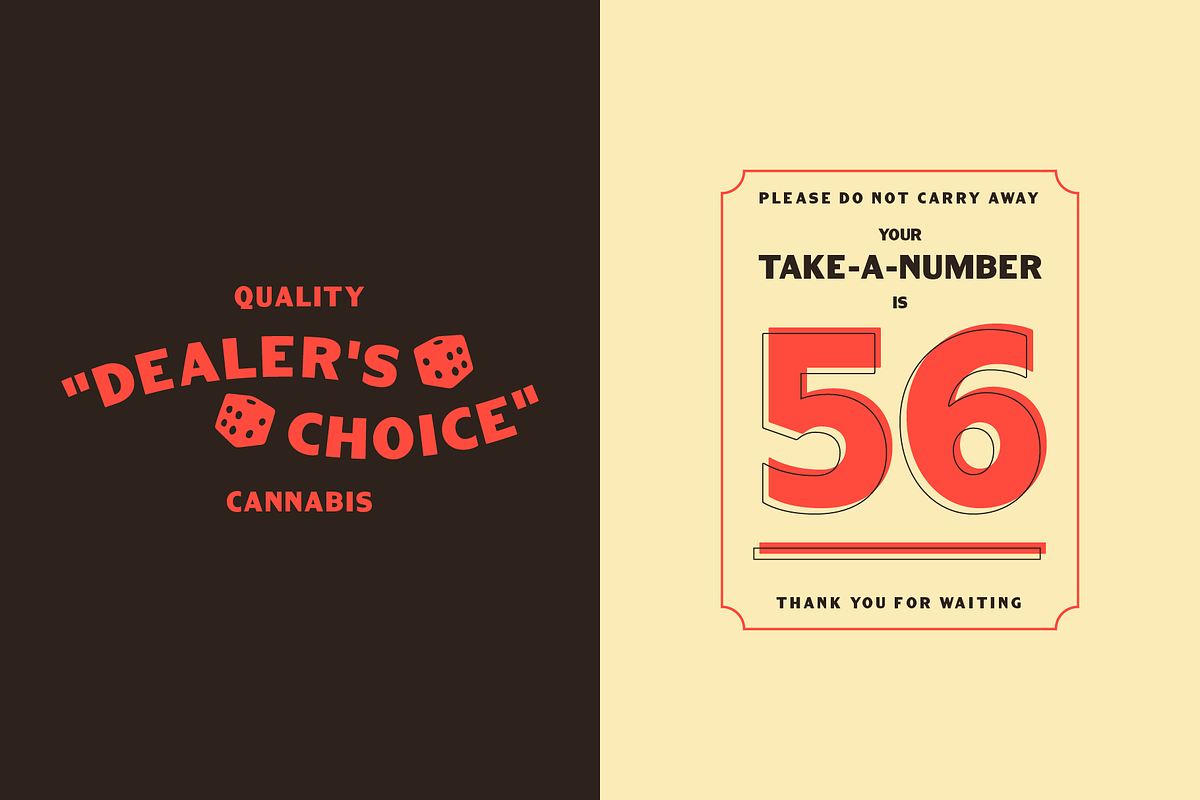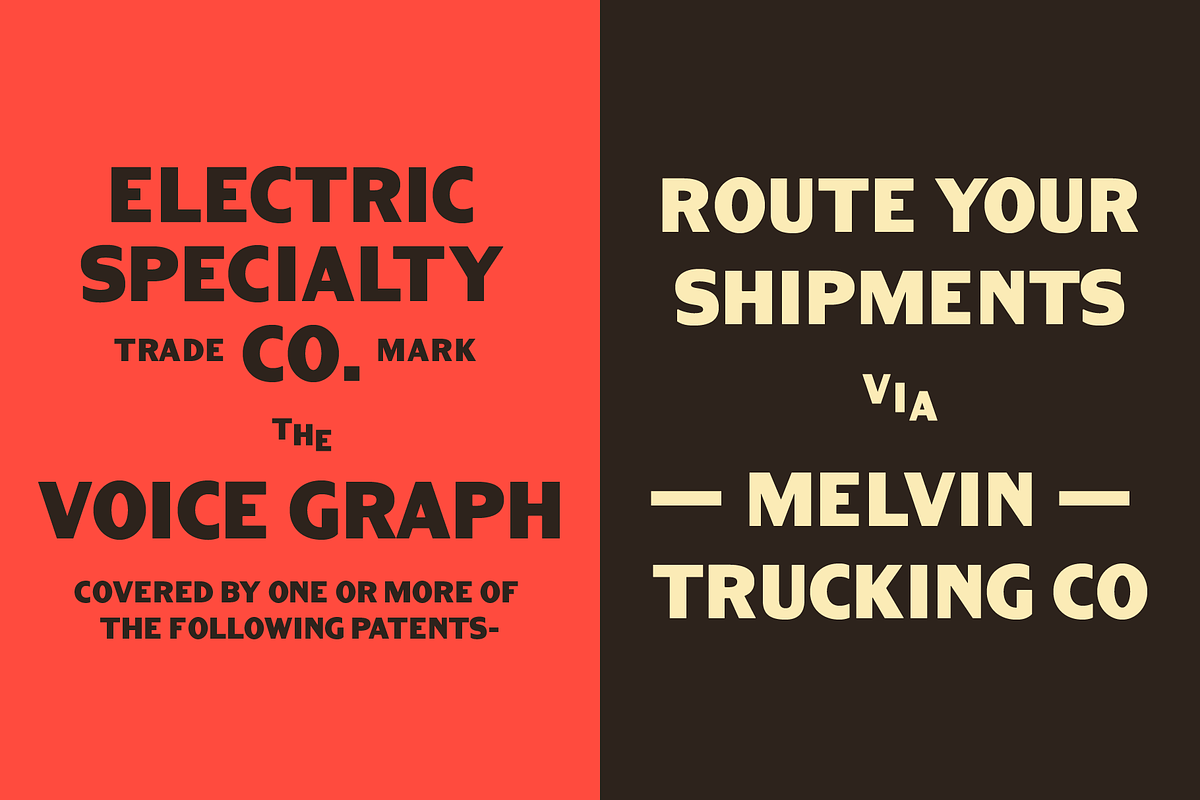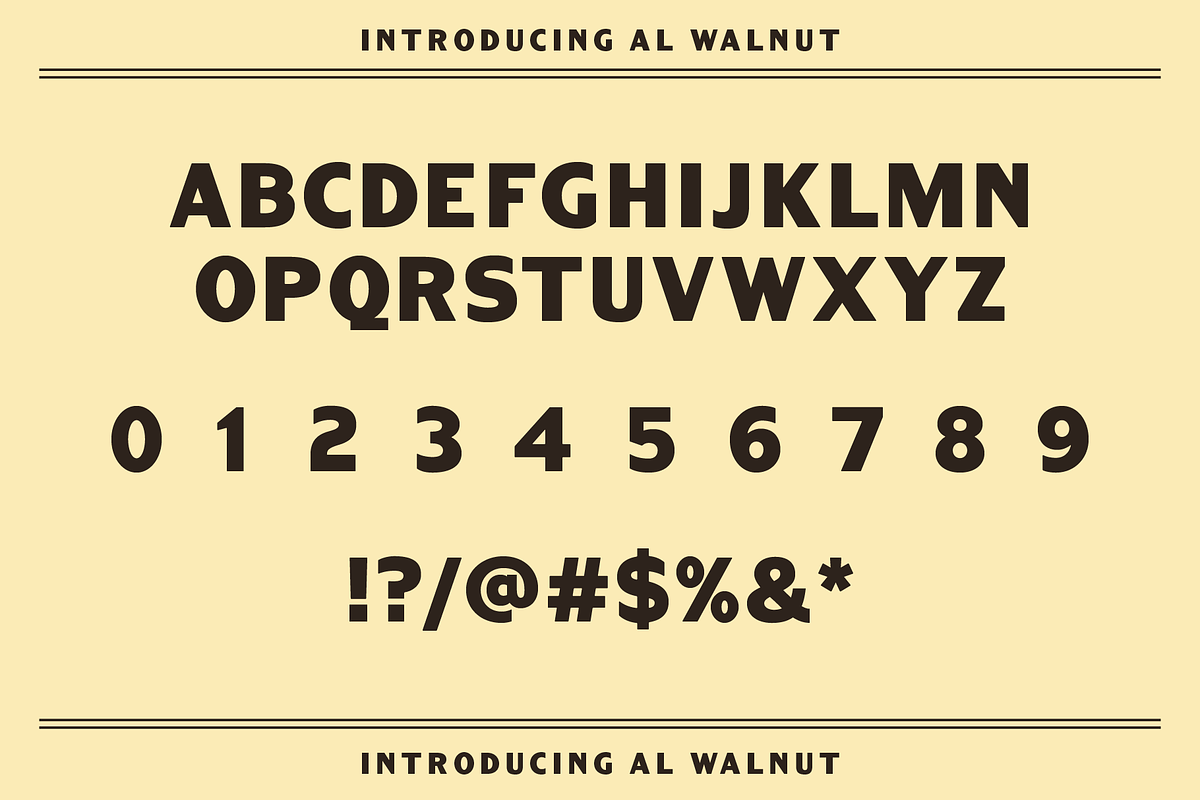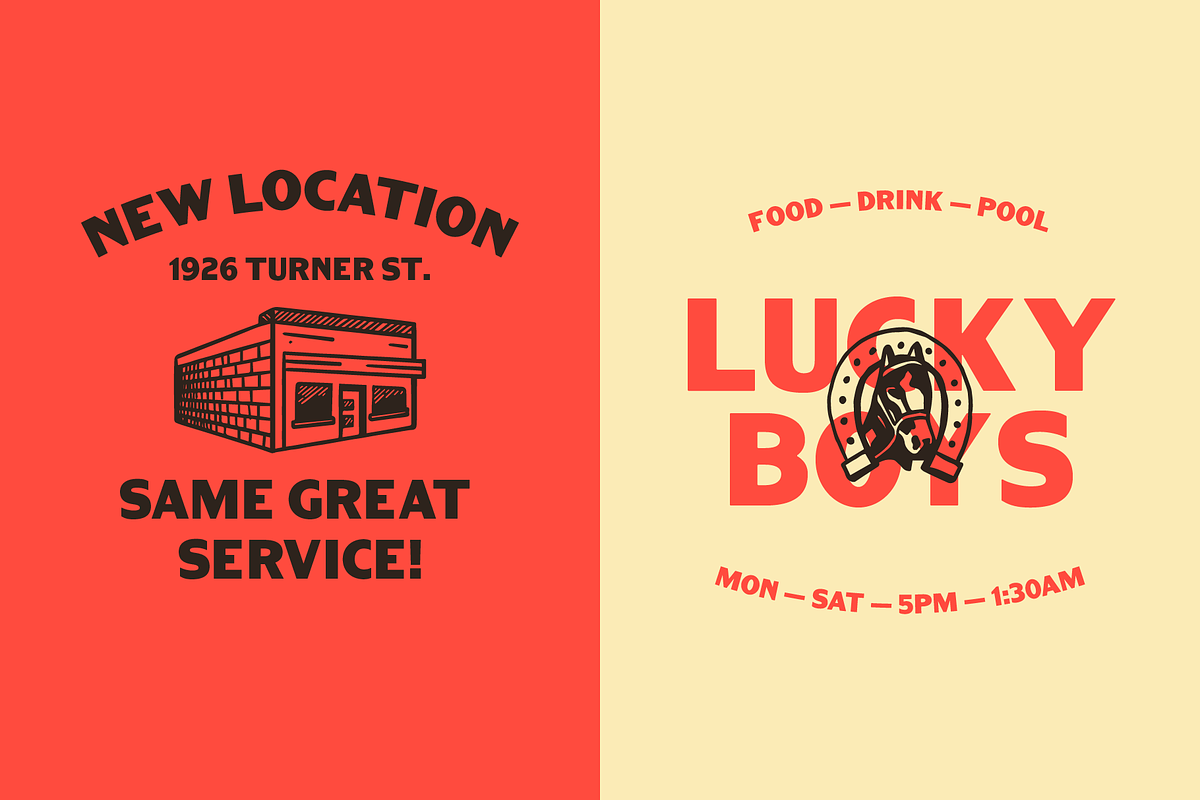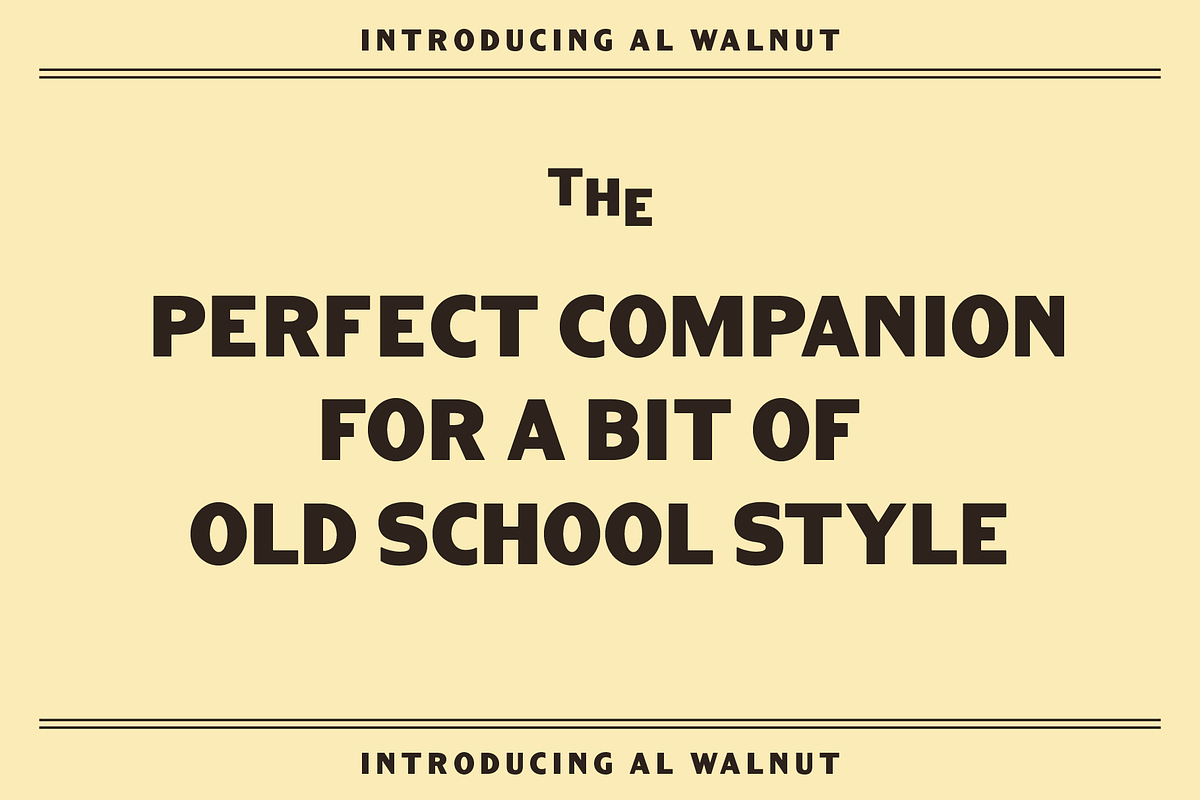
AL Walnut
Walnut began from very little—a scrap of paper with a lettered address. However the display sans quickly evolved. The perfect companion for a bit of old-school style. Walnut’s unique weight distribution, unexpected angles and bold presence adds a bit of flavor to any dish.
Perfect for brand identities, retro feeling social graphics, or printed invitations. Walnuts style is particularly suited for hospitality brands, like restaurants, bars, and boutique hotels.